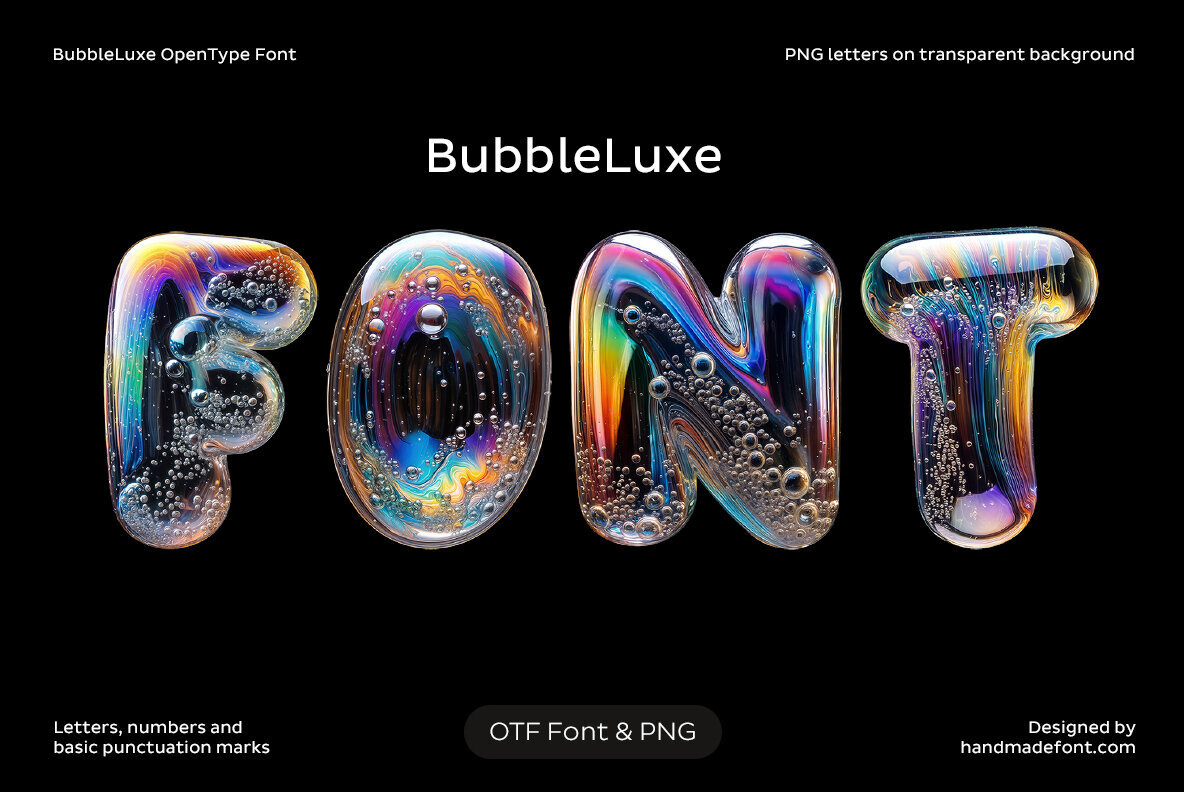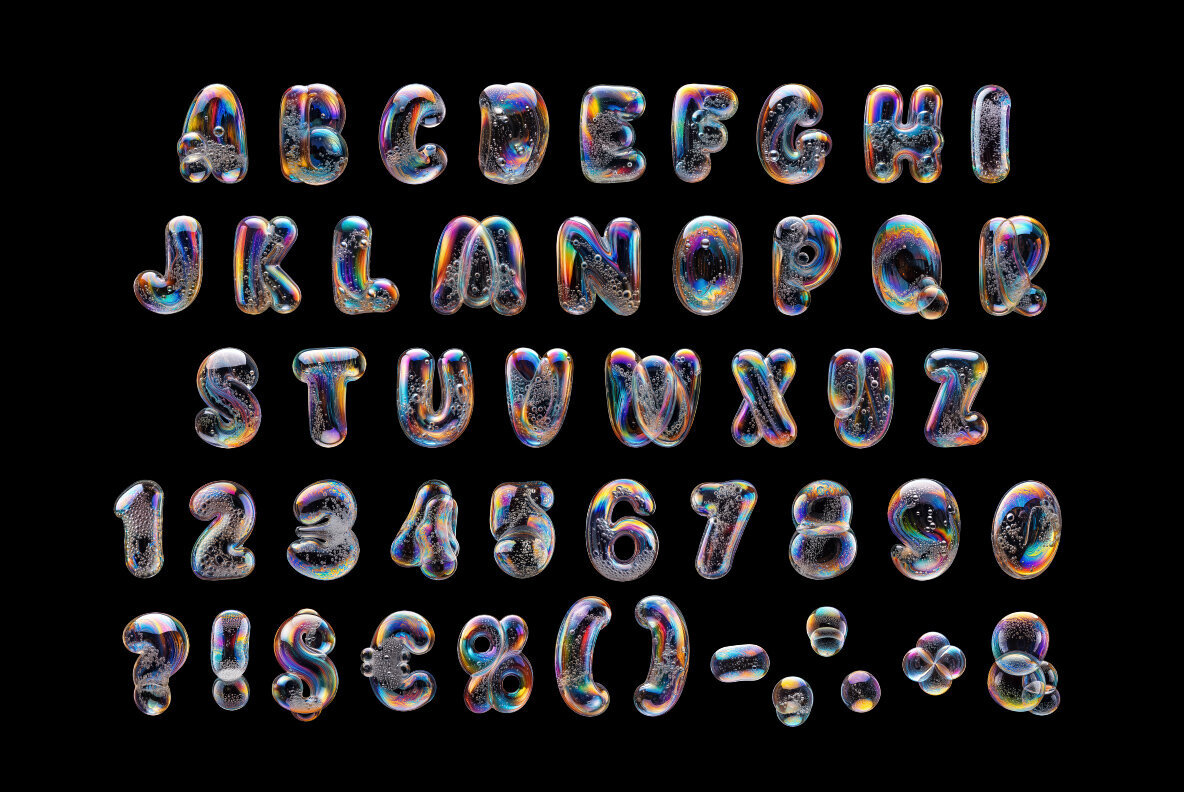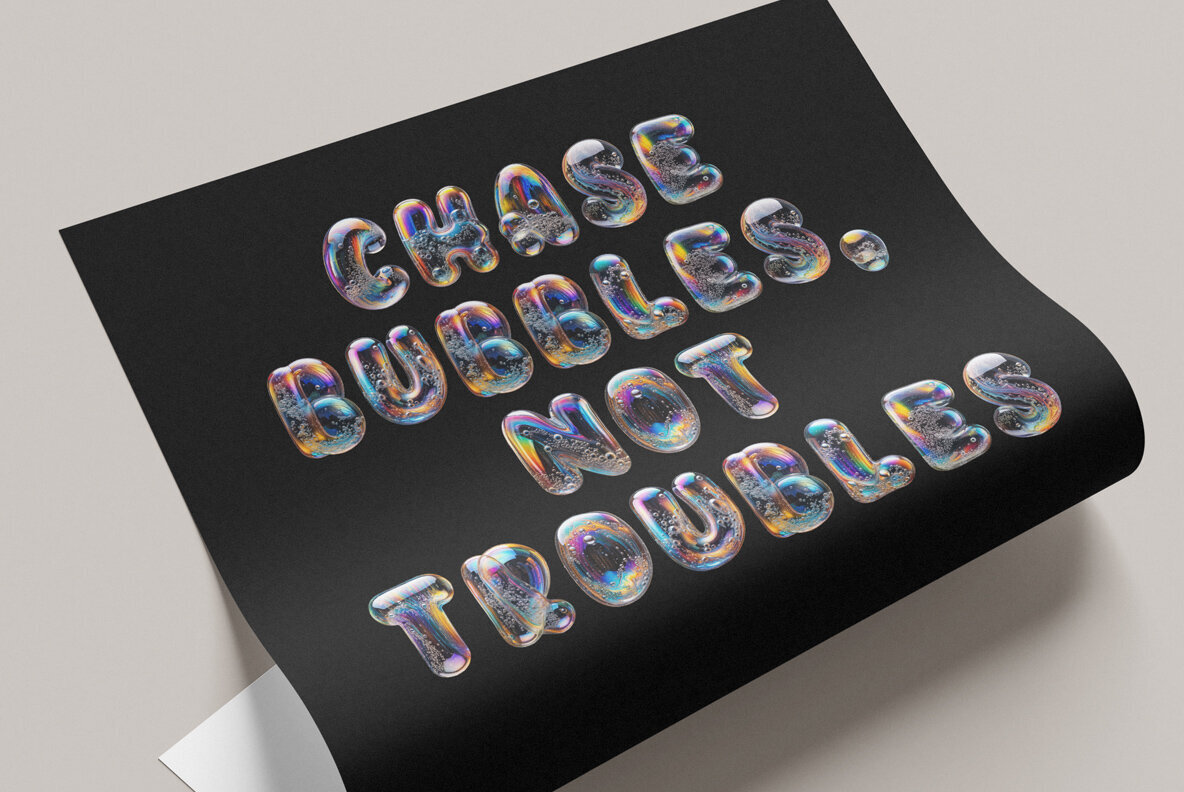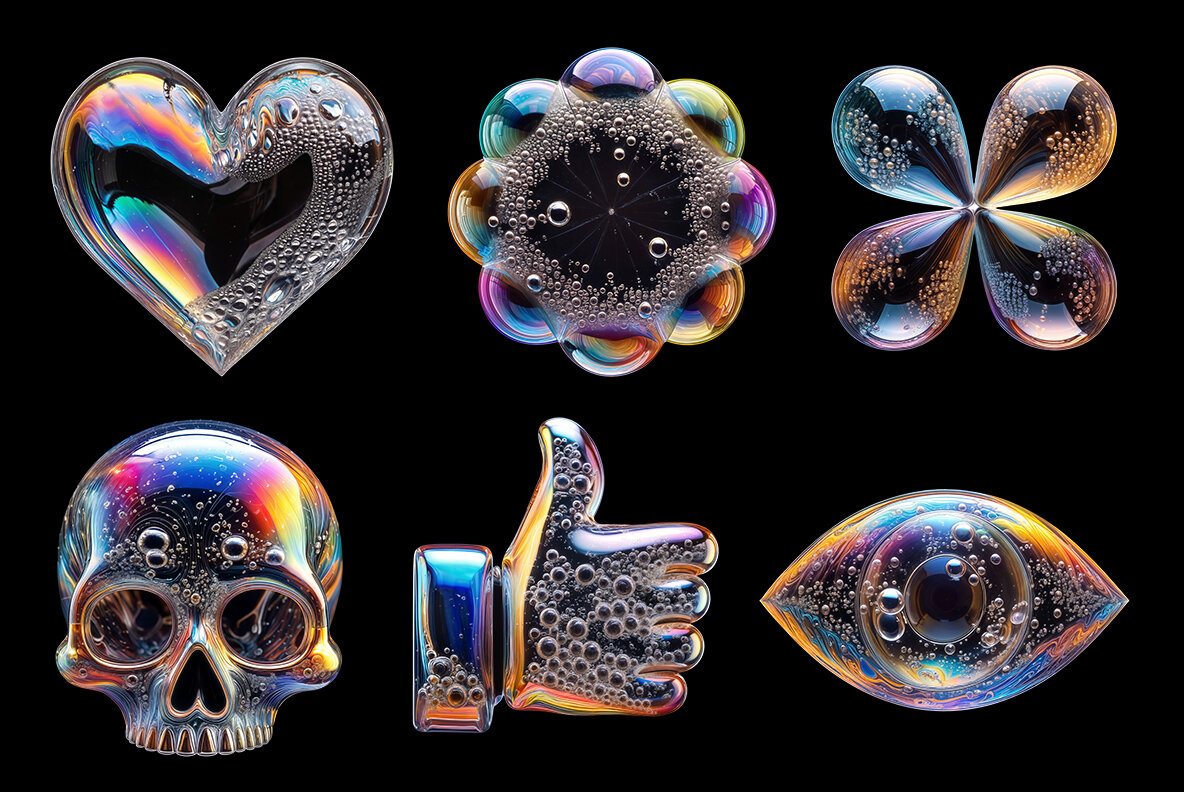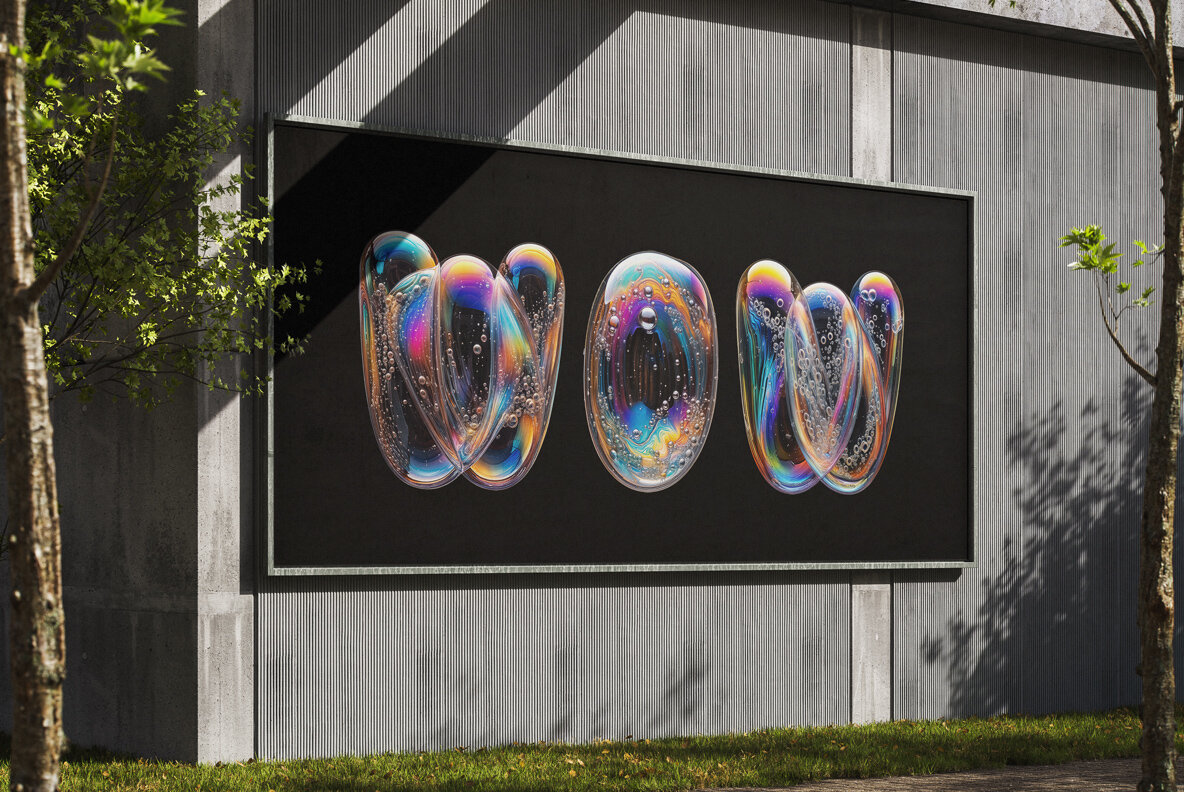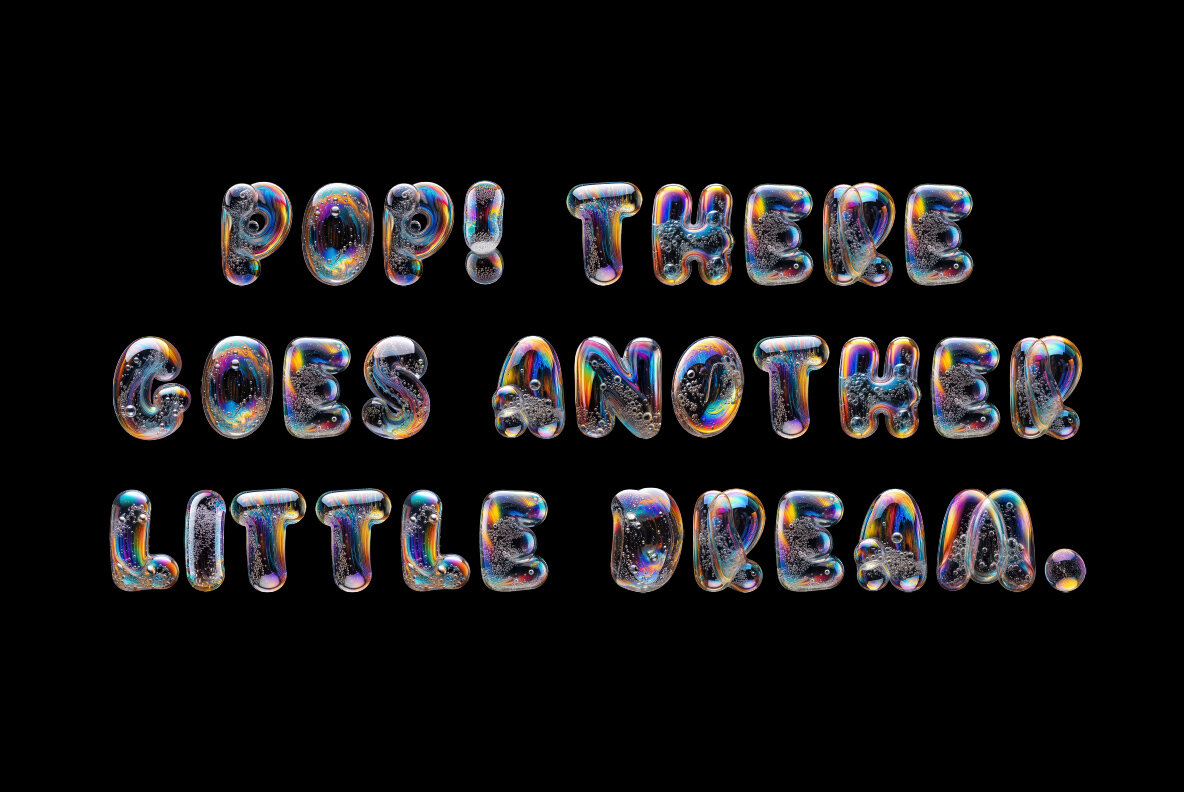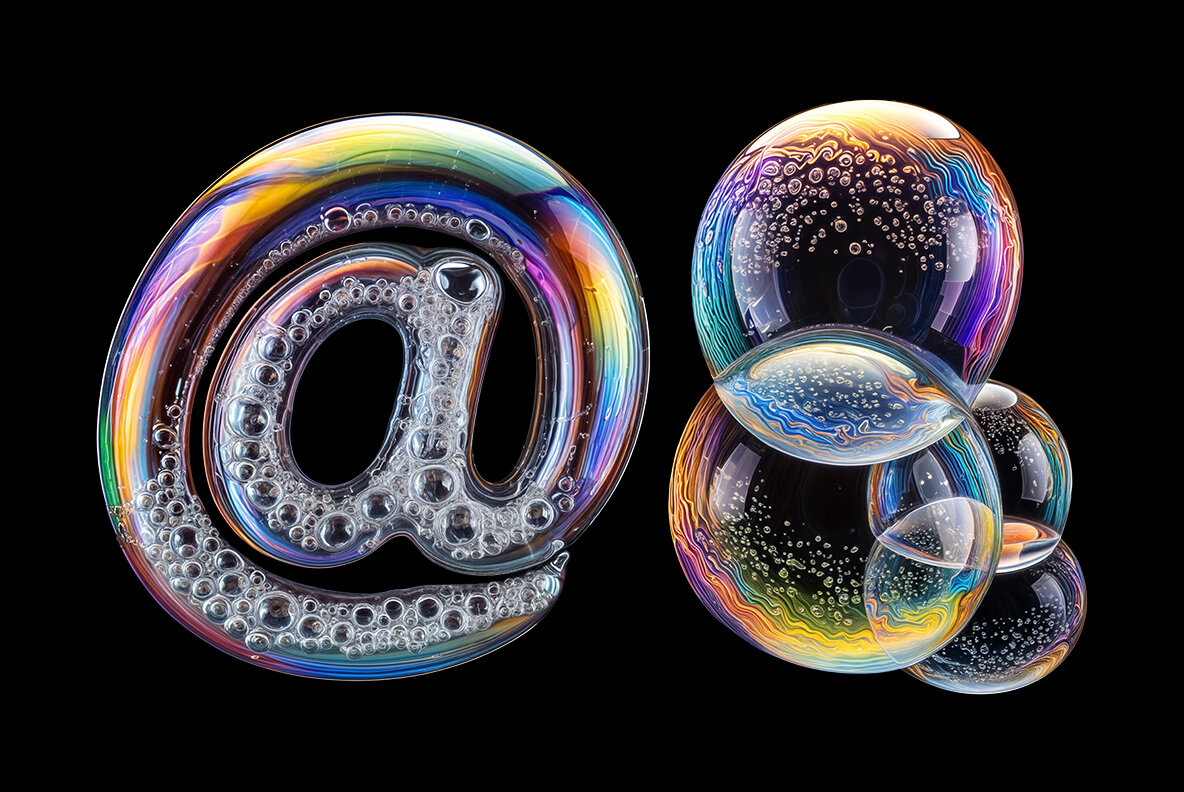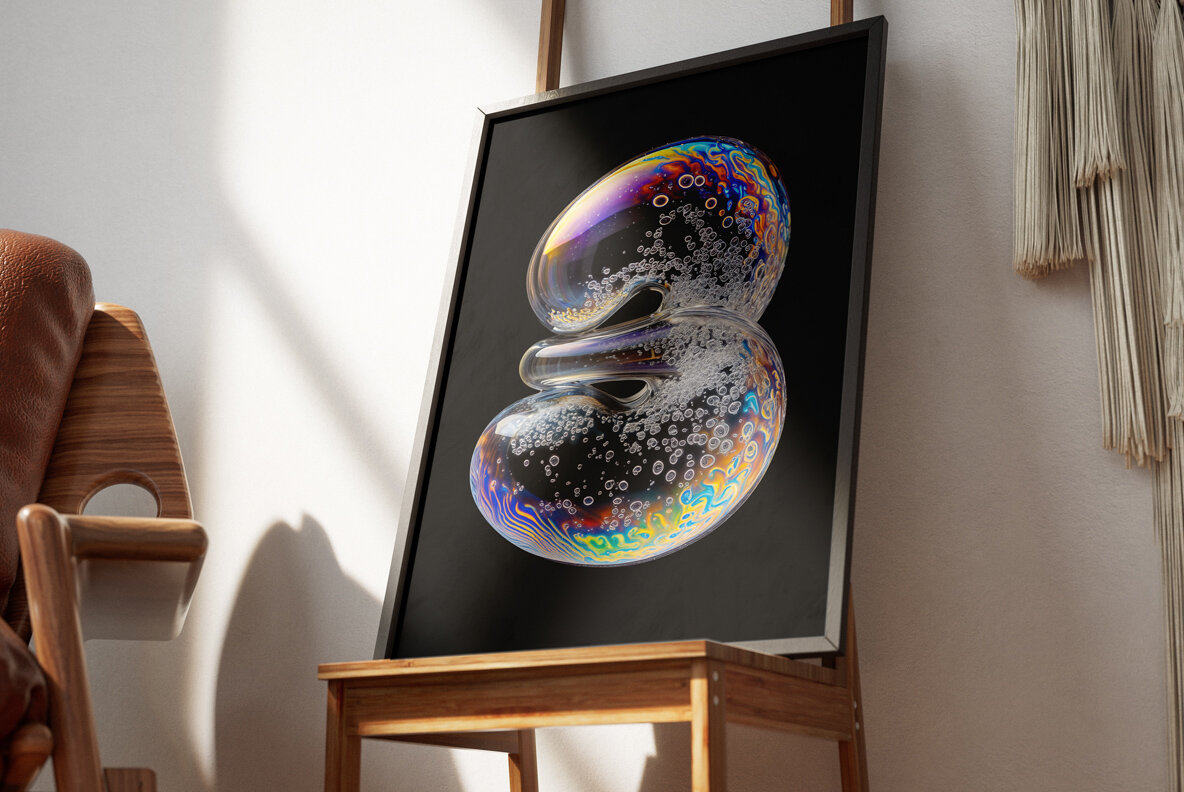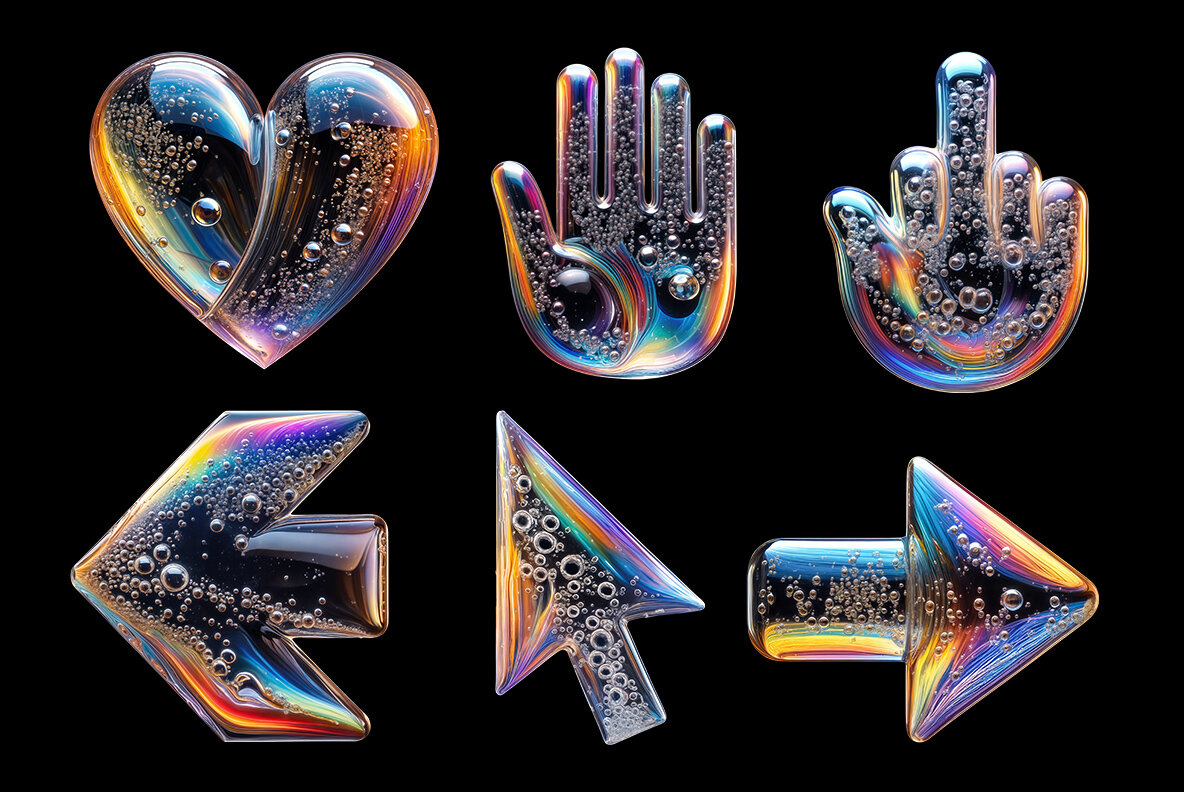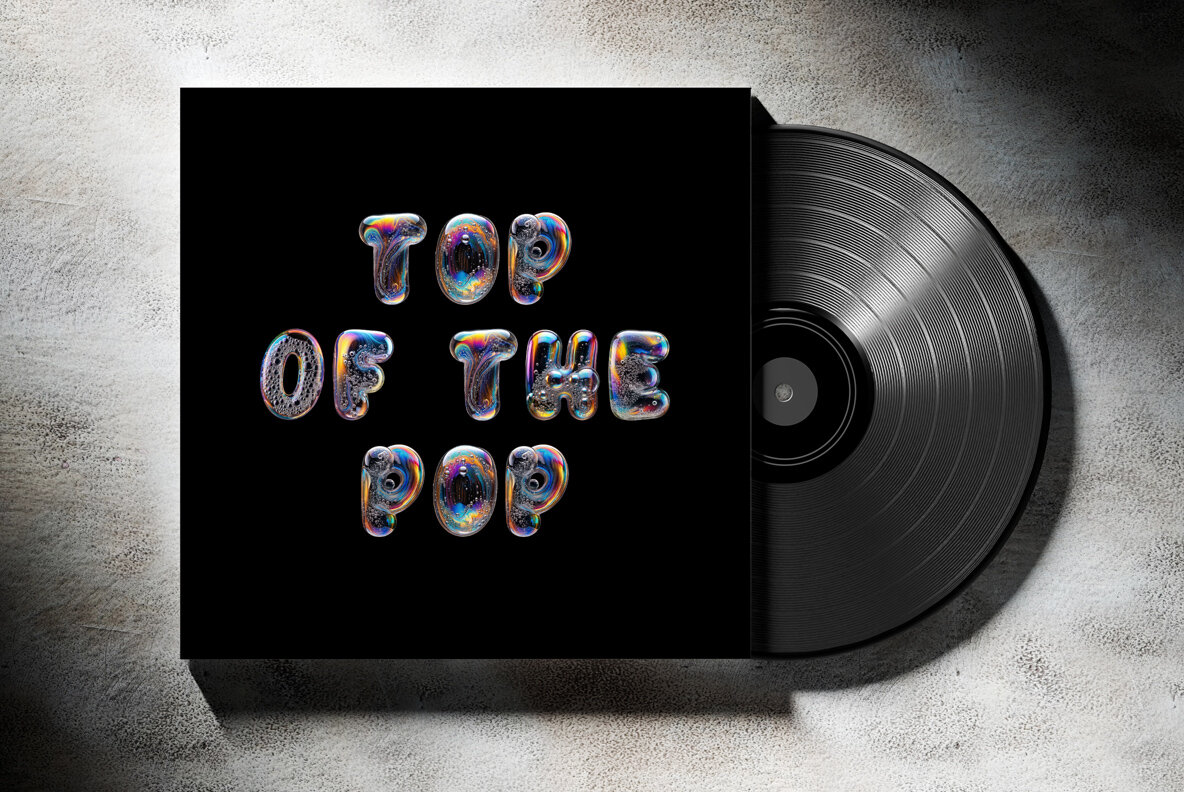
Enter a world where typography transcends the traditional with BubbleLuxe, a font infused with the magical allure of shimmering rainbow bubbles. Each character exudes an ethereal charm, shimmering with swirling colors and intricate layers. This playful yet sophisticated typeface transforms ordinary text into an eye-catching visual spectacle, perfect for beauty branding, whimsical posters, or imaginative packaging designs. Features: The BubbleLuxe typeface is both luxurious and enchanting, designed to let your text float with elegance. While extended punctuation and language support may not be included in the font files, all characters are available as high-quality individual .png files, ensuring seamless integration into your projects.BubbleLuxe: A Mesmerizing Typeface of Shimmering Rainbow Bubbles